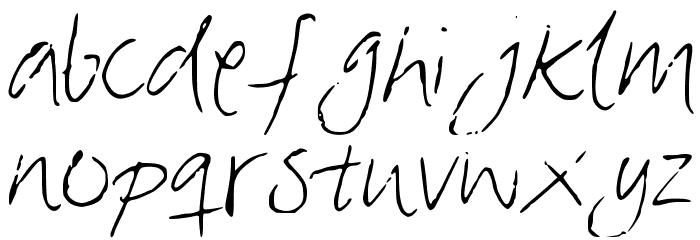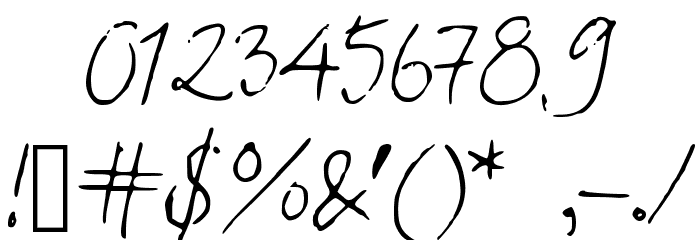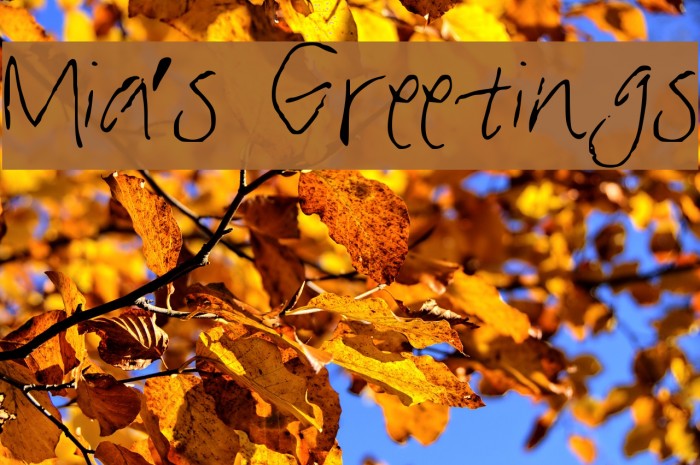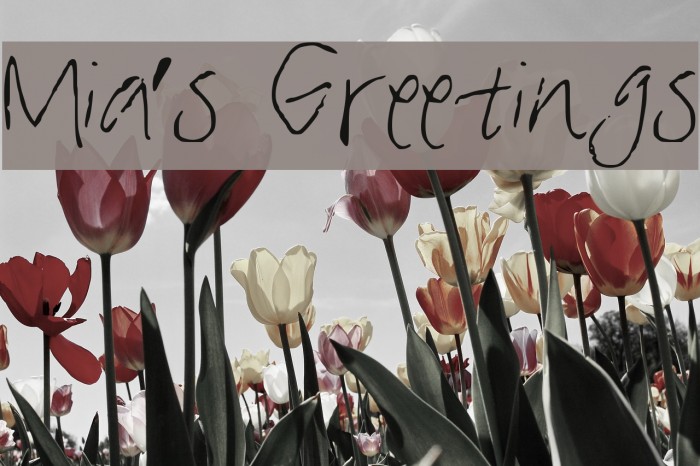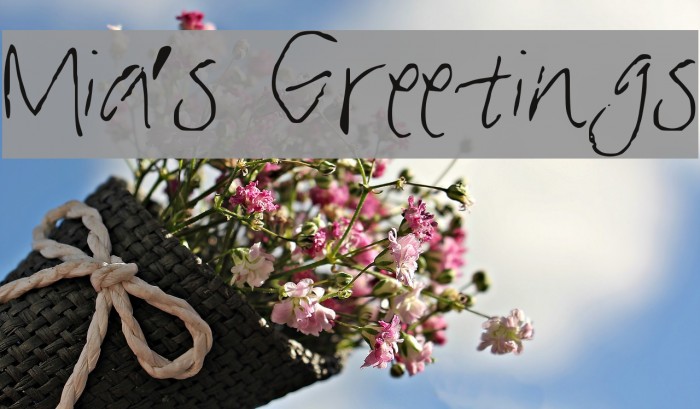
Mia's Greetings Font
This font exudes a casual, handwritten style with a dynamic and fluid appearance. The letters are slightly slanted, giving it a natural, organic feel reminiscent of personal handwriting. The strokes vary in thickness, adding a sense of movement and energy. The uppercase letters are bold and prominent, while the lowercase letters maintain a consistent flow. Numbers and special characters are crafted with the same lively touch, ensuring a cohesive look across all elements. This font is perfect for projects that require a personal, informal touch.
A lively, handwritten-style font with dynamic strokes and a casual feel.
- Proposed Projects: Ideal for greeting cards, personal notes, invitations, and creative branding projects.
- Overall Style: Casual, Organic
- Use Case: Headlines, Logos, Invitations